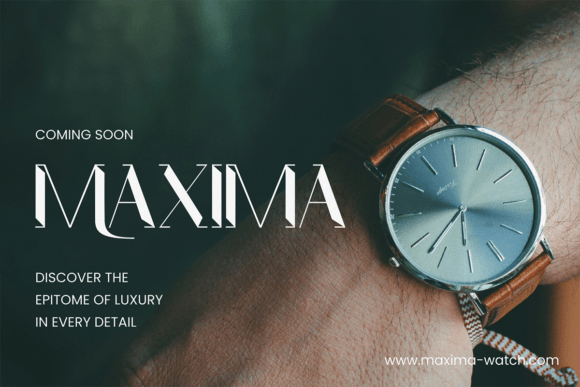
Introducing Flowza Unique Sans Serif Font: Elevate Your Designs with a Modern Twist
In the realm of typography, a font can make or break the visual appeal of a design. With the vast array of typefaces available, finding one that is both contemporary and distinctive can be a challenge. This is where Flowza Unique Sans Serif Font comes into play, offering a fresh and artistic approach to typography. In this article, we’ll delve into the features, benefits, and applications of Flowza, and explore how it can enhance your creative projects.
Key Features of Flowza Unique Sans Serif Font
- Modern and Artistic Design: Flowza boasts a sleek and polished look, characterized by clean lines and smooth curves. Its innovative flair sets it apart from traditional sans serif fonts, making it perfect for designers looking to add a unique touch to their work.
- Versatility: This font is designed to be versatile, suitable for a wide range of applications including branding, logos, web design, and print materials. Whether you’re working on a business card or a website, Flowza can adapt to your needs.
Applications of Flowza Unique Sans Serif Font
Flowza’s unique design and versatility make it an excellent choice for various creative projects. Here are some of the key areas where Flowza can make a significant impact:
- Branding and Logos: A well-designed logo is crucial for any brand. Flowza’s modern and artistic look can help create a memorable brand identity that stands out in a crowded market.
- Web Design: With the increasing importance of online presence, Flowza can be used to create visually appealing websites that capture users’ attention. Its clean lines and smooth curves ensure readability across various devices.
- Print Materials: From business cards to brochures, Flowza can elevate your print materials with its sleek and polished look. It’s perfect for creating professional yet creative designs.
Benefits of Using Flowza Unique Sans Serif Font
Choosing Flowza Unique Sans Serif Font for your projects comes with several benefits:
- Unique and Memorable: Flowza’s distinctive design ensures that your work stands out and leaves a lasting impression on your audience.
- Time-Saving: With its PUA encoding and extensive range of glyphs and swashes, Flowza saves you time in finding the right typography for your project.
Tips for Using Flowza Unique Sans Serif Font
To maximize the potential of Flowza, consider the following tips:
- Experiment with Sizes and Weights: Flowza comes in various sizes and weights. Experimenting with these can help you find the perfect balance for your design.
- Combine with Other Fonts: While Flowza is stunning on its own, it can also be paired with other fonts to create a unique visual hierarchy.
- Utilize Glyphs and Swashes: Take full advantage of Flowza’s PUA encoding by incorporating glyphs and swashes into your design to add a creative touch.
Flowza Unique Sans Serif Font is a game-changer for designers looking to infuse their projects with a modern and artistic flair. Its clean design, versatility, and PUA encoding make it an excellent choice for a wide range of applications. By incorporating Flowza into your designs, you can ensure that your work stands out, captures attention, and leaves a lasting impression. So, let your creativity flow with Flowza and elevate your designs to new heights.